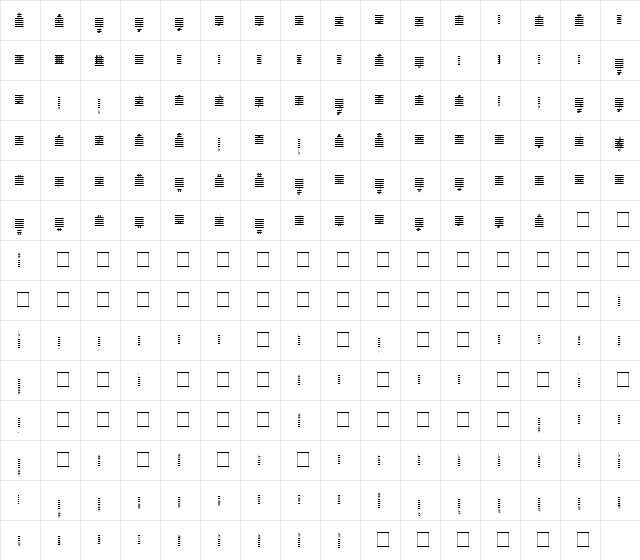
Lassus Medium Font Preview
Lassus Medium
Design Context for Lassus Typeface
Lassus is a composed and adaptable typeface that performs quietly and consistently across a wide range of design contexts.